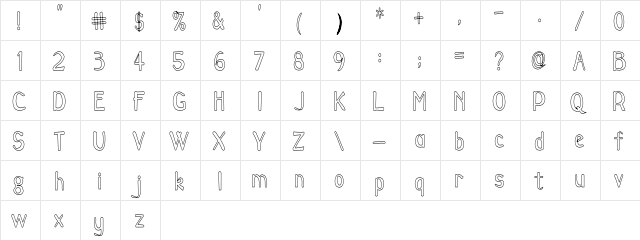
CarawayHC Regular
Design Context for CarawayHC Typeface
CarawayHC takes a measured approach to typography — its balanced proportions and neutral character make it a reliable workhorse for both digital and print work.